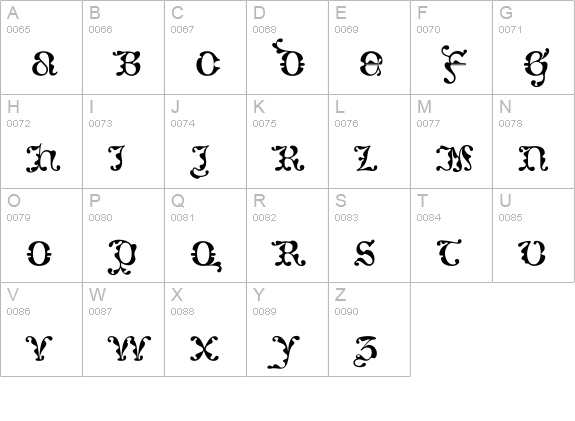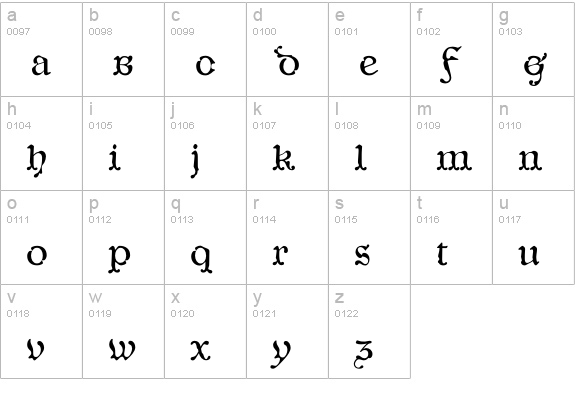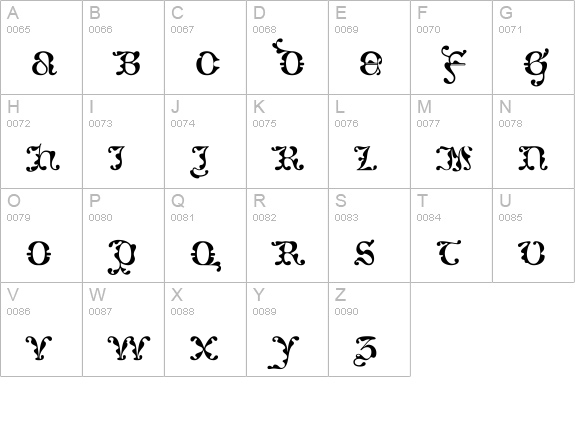
CaligrafiaDeBula-Normal is the standard, neutral variant in the CaligrafiaDeBula typeface family \xE2\x80\x94 well suited to general body text, paragraphs, and standard typographic work.
CaligrafiaDeBula-Normal font exudes elegance and sophistication with its beautifully crafted calligraphy style. The fluid strokes and delicate curves of this font create a sense of artistic flair and timeless charm. Whether used for invitations, branding, or decorative purposes, CaligrafiaDeBula-Normal adds a touch of refinement to any design. The best part is that CaligrafiaDeBula-Normal font is completely free to download at FontsMarket.com. Now you can elevate your projects with this exquisite font without any cost. Don't miss out on the opportunity to enhance your creations with the beauty of CaligrafiaDeBula-Normal font, available for free at FontsMarket.com.